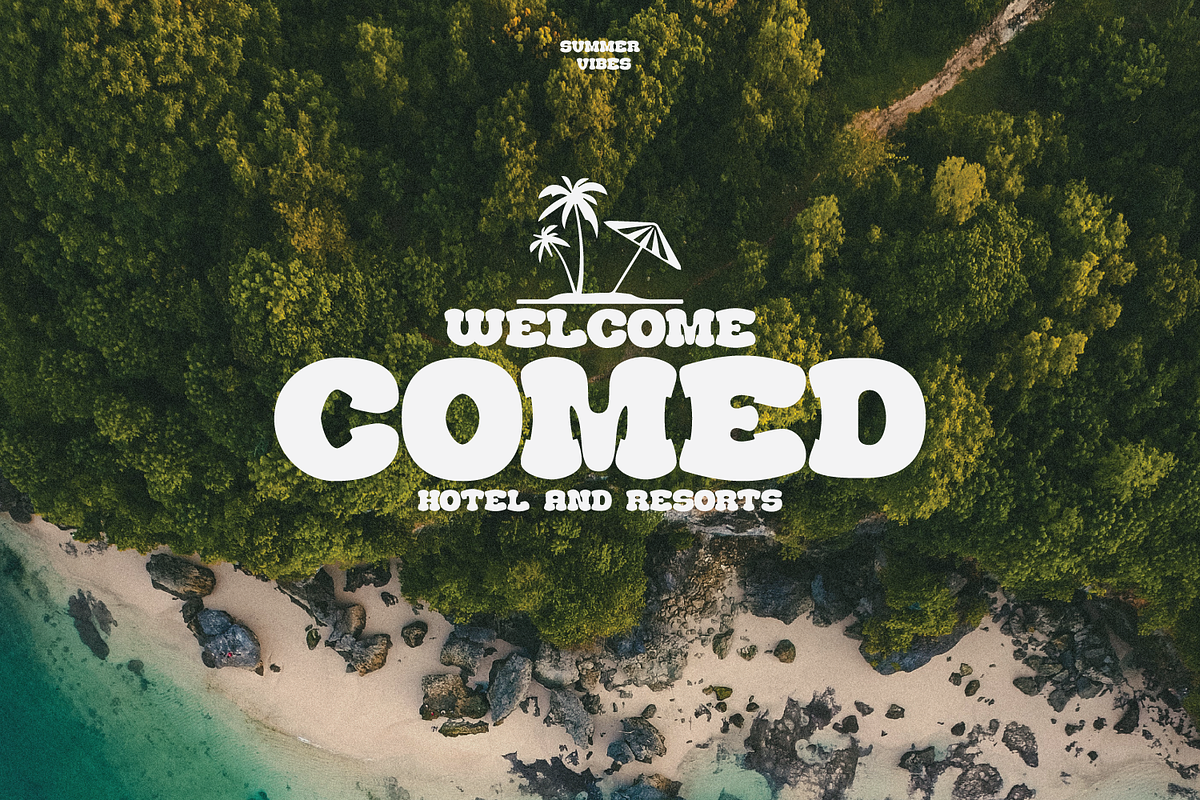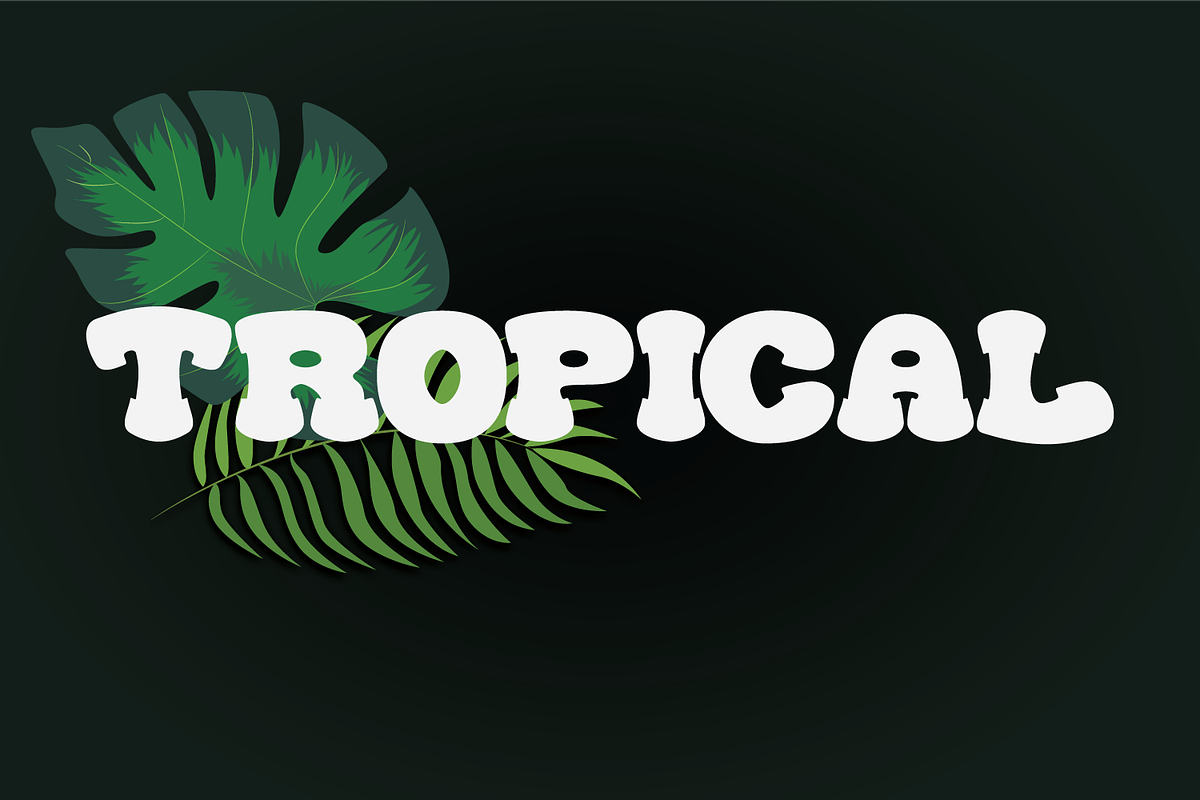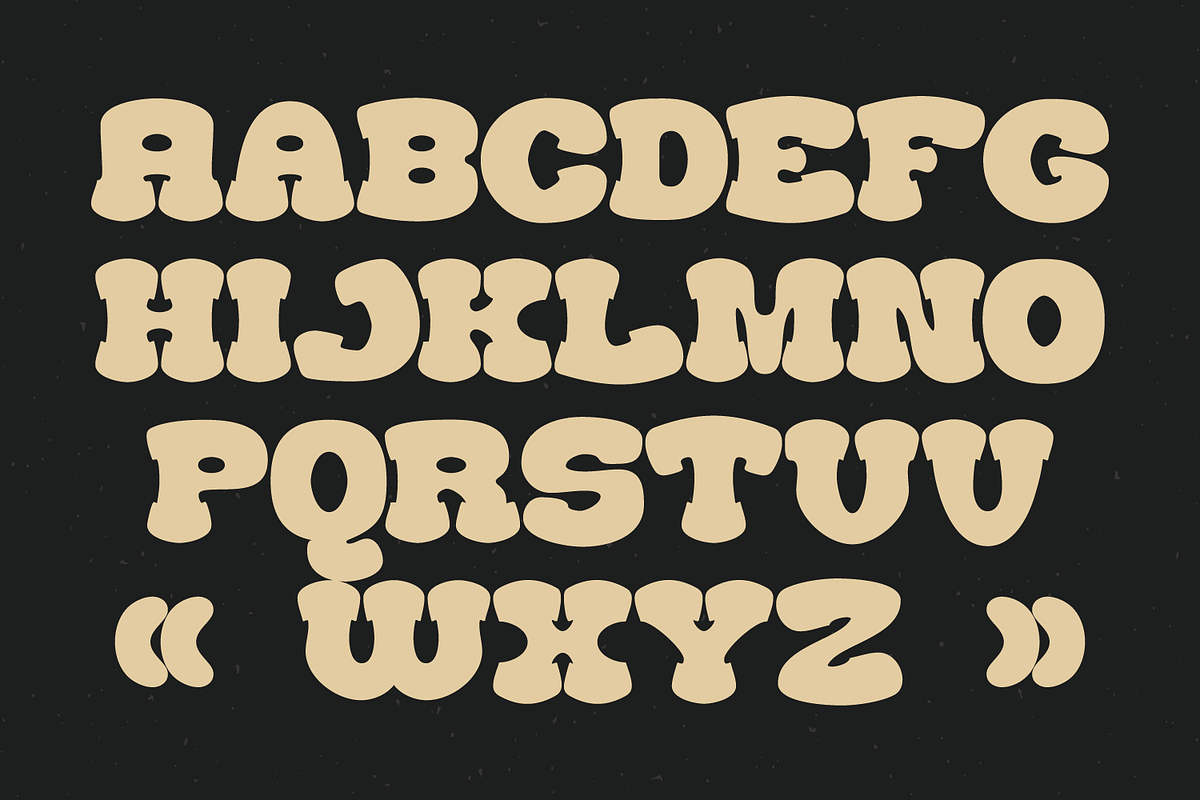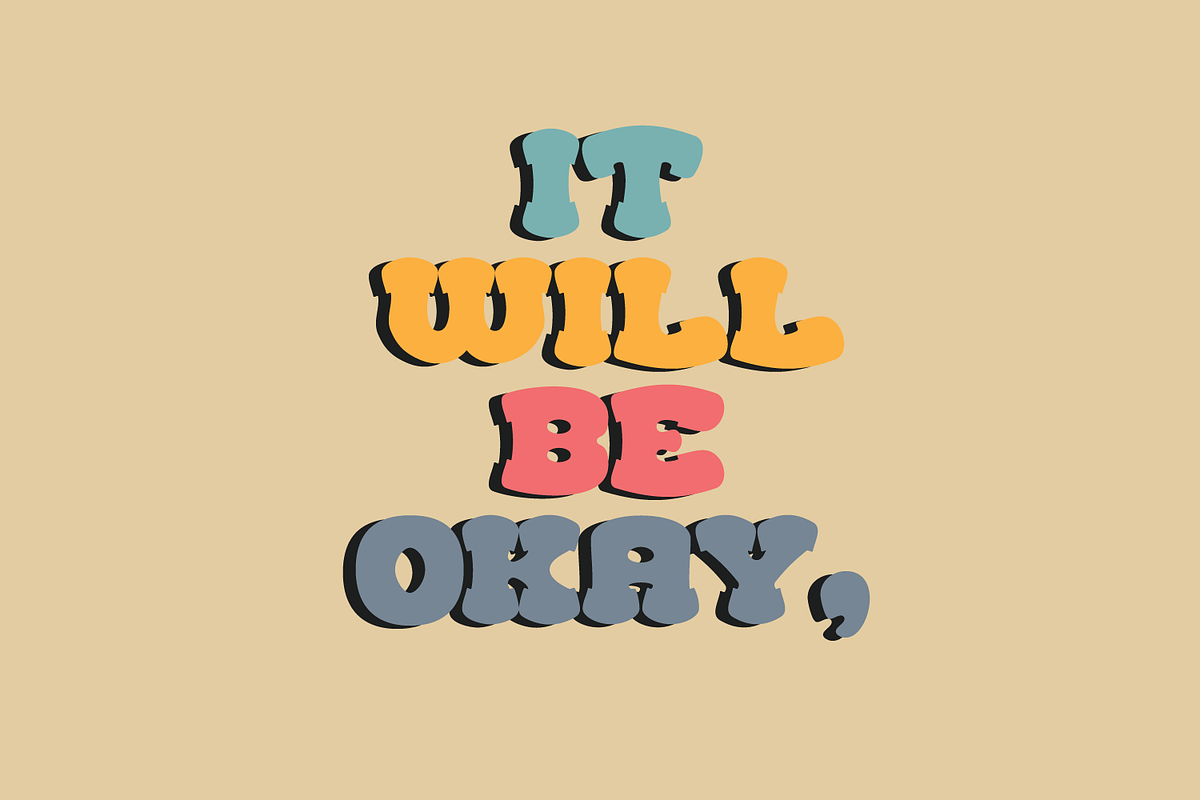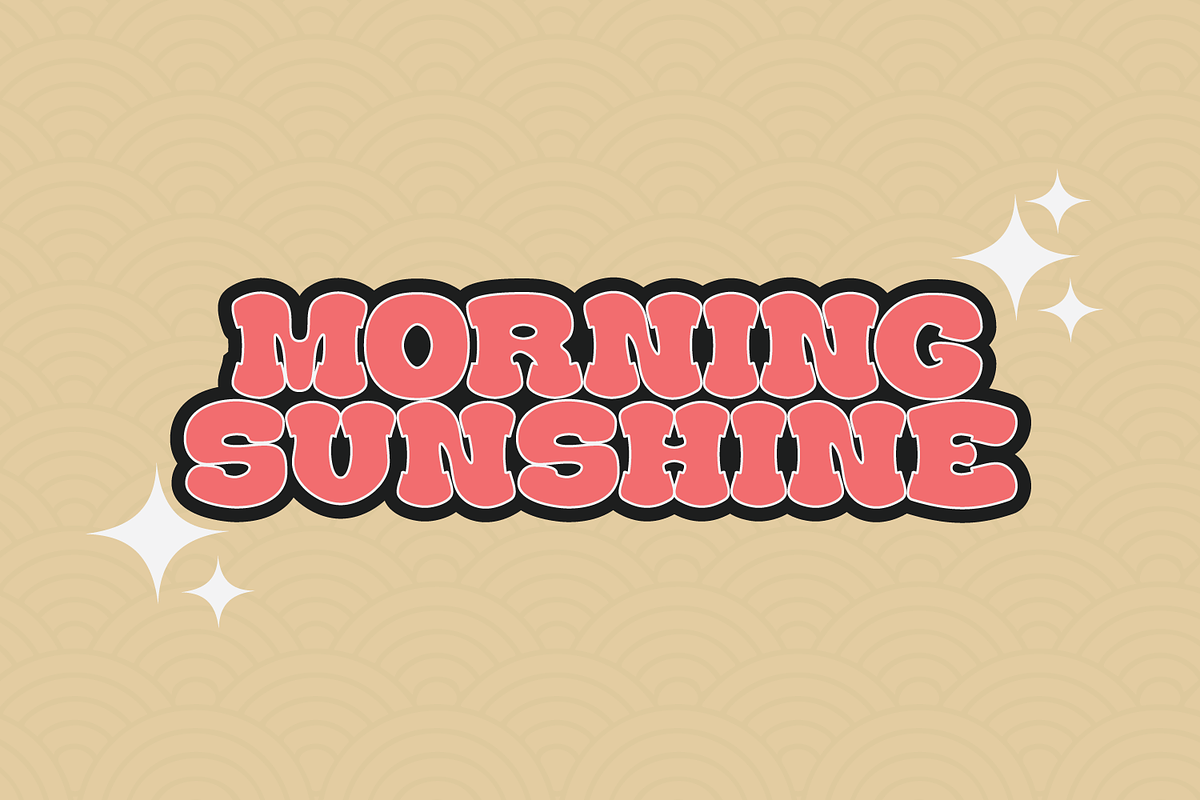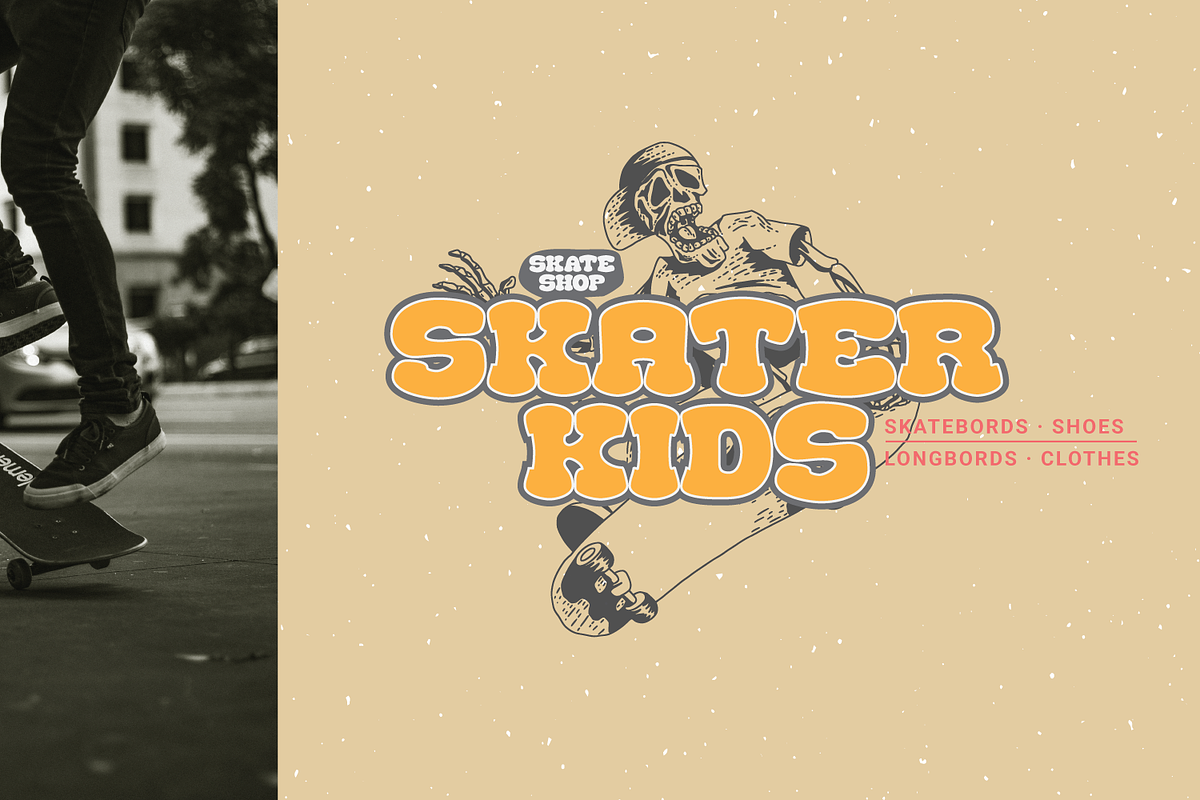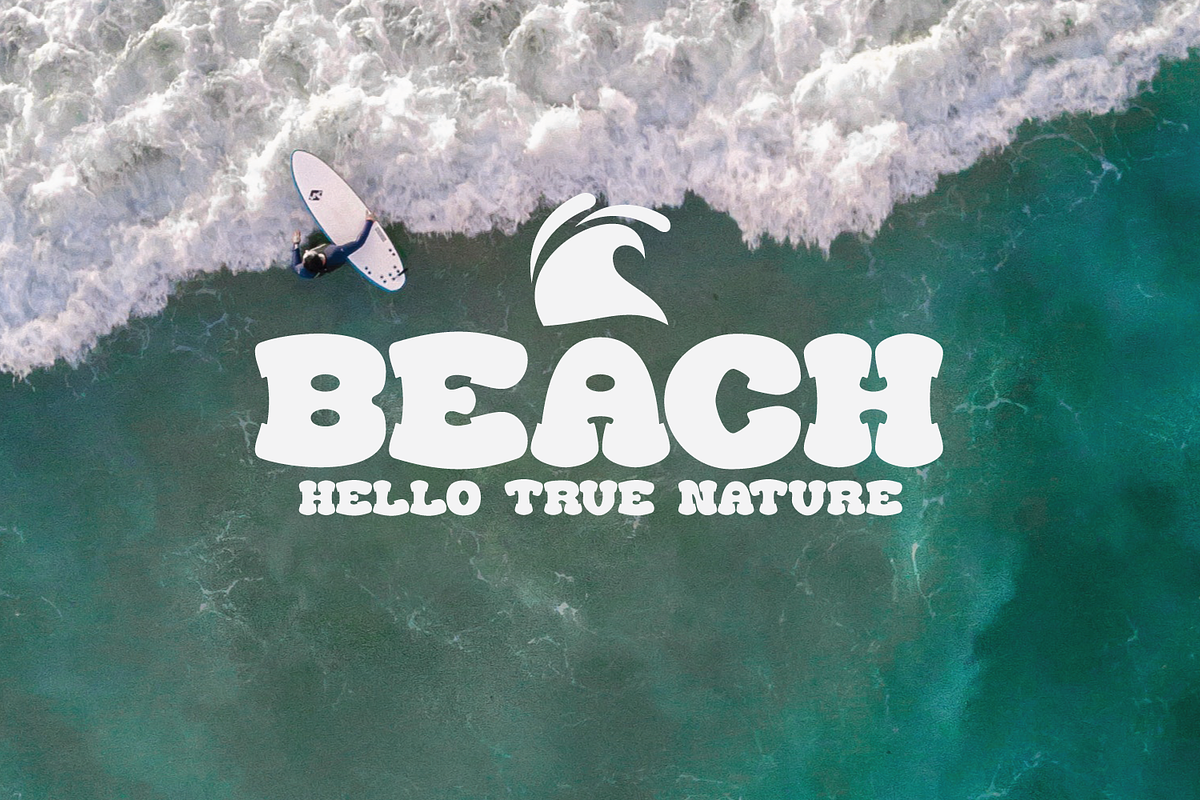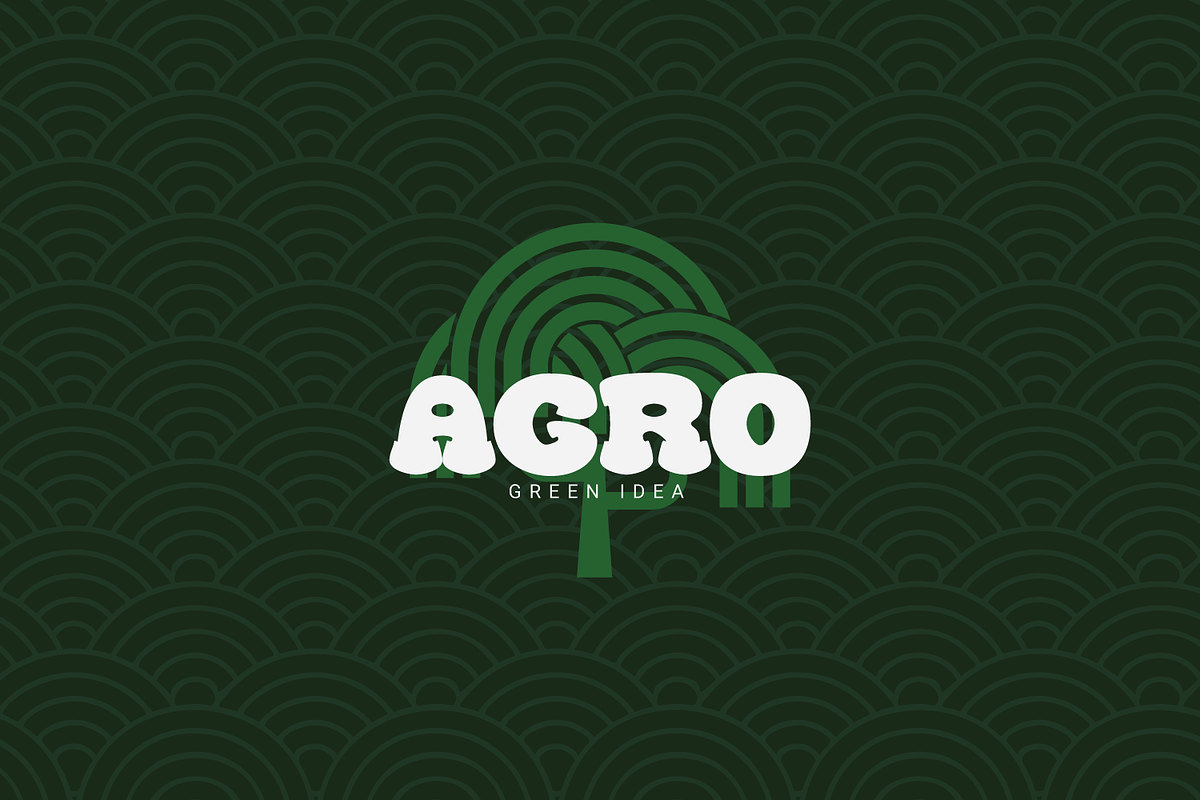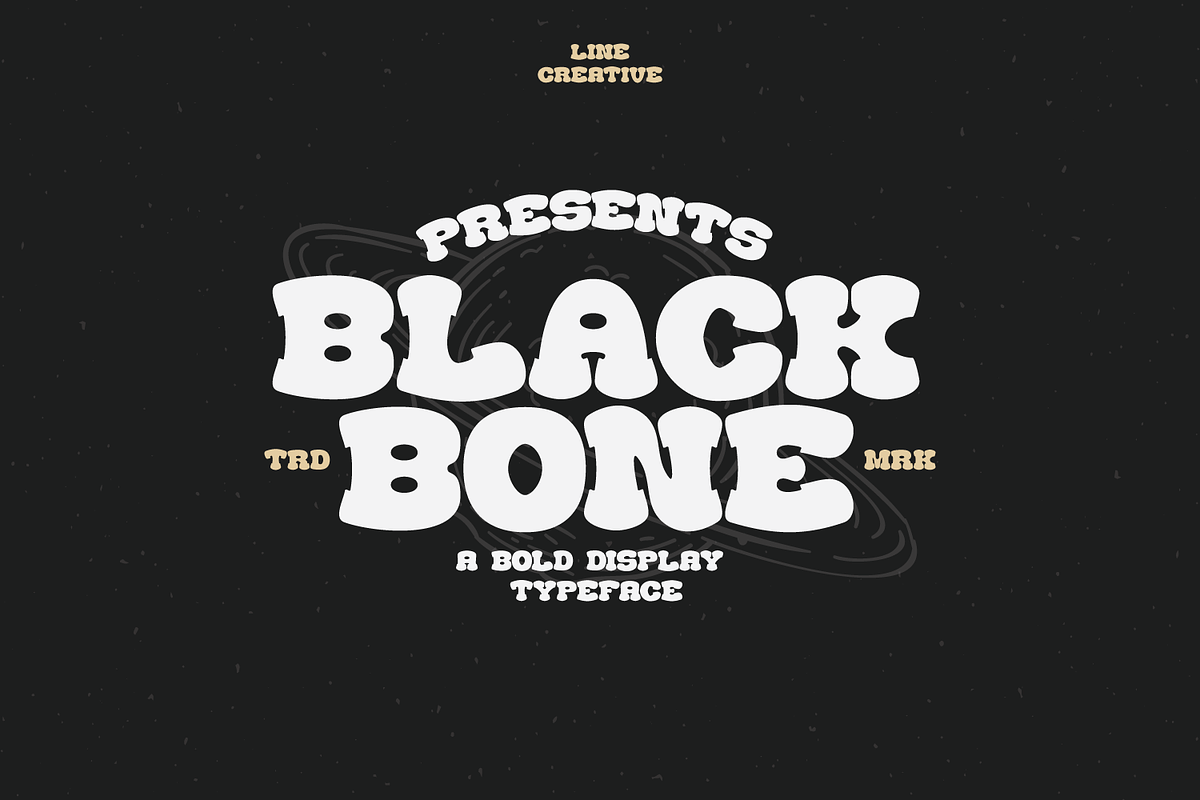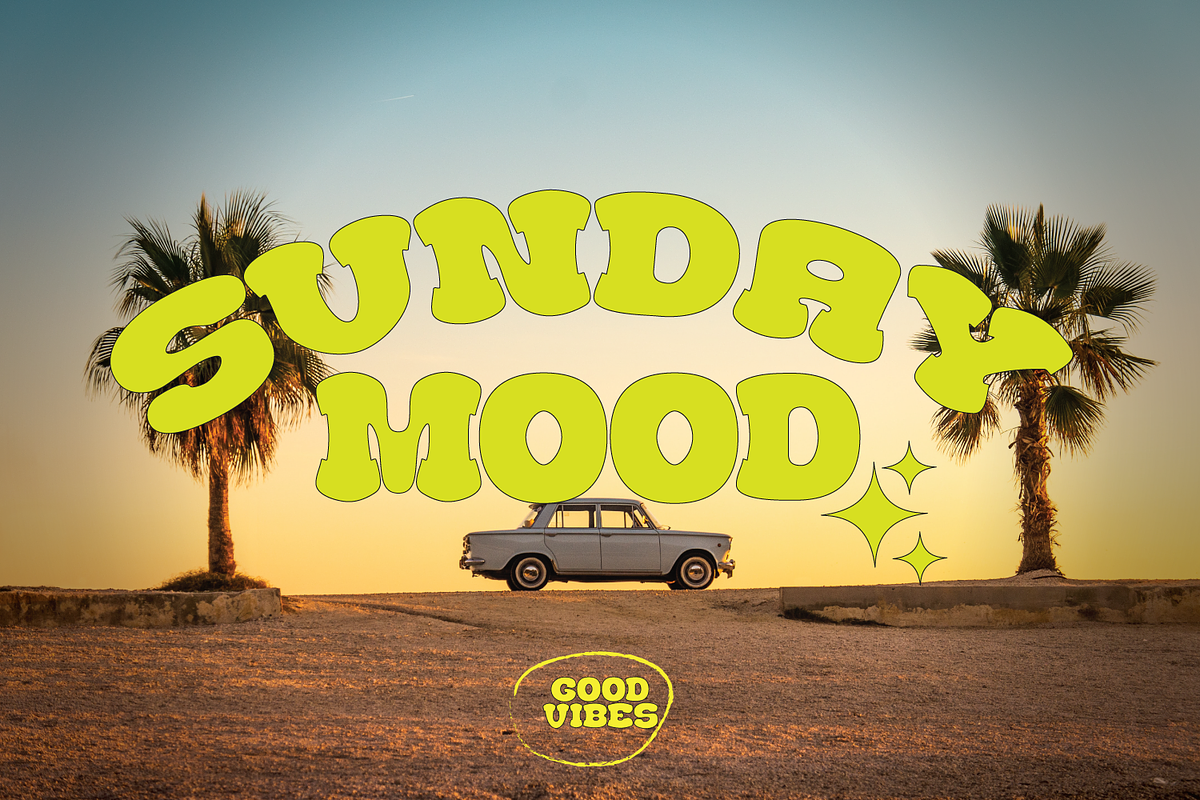
Black Bone
Black bone Inspiring from vintage playful style typography. This font is perfect for a design that makes it more attractive and playful. made with a very good level of aesthetics making this font suitable for book cover, poster, packging, merchandise, logotype and much more.